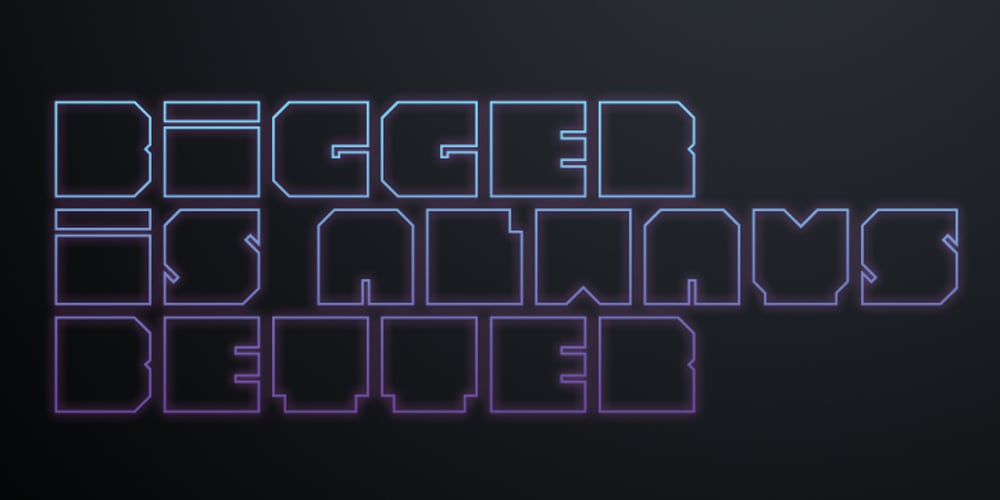
Iamblock Font Family was designed by Adam Greasley and published by wearecolt. Iamblock contains 2 styles and family package options. Free FontIamblock is a super heavy display font that makes a statement. In the family, you get a monospace and a naturally spaced version of Iamblock. Iamblock was developed with the rave and party scene in mind, with lots of bright, bold colors mixed with blacks and whites… it’s about the heavy contrast.